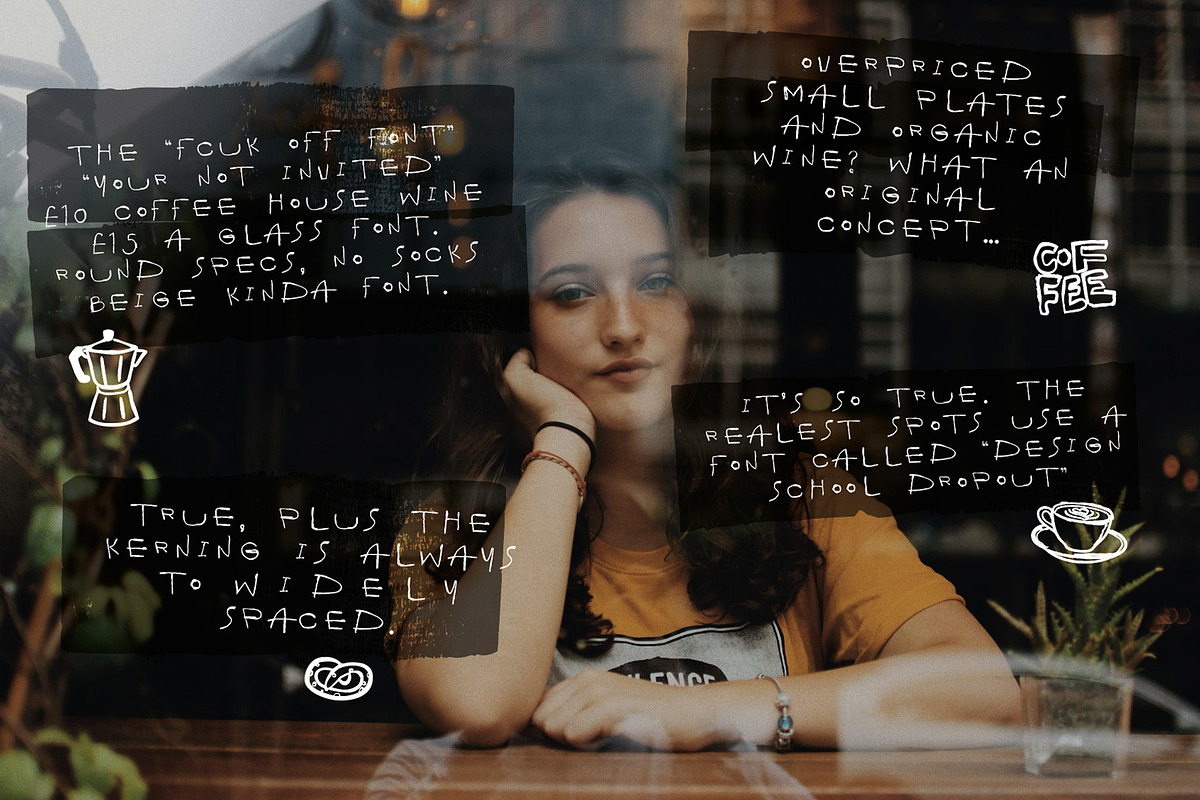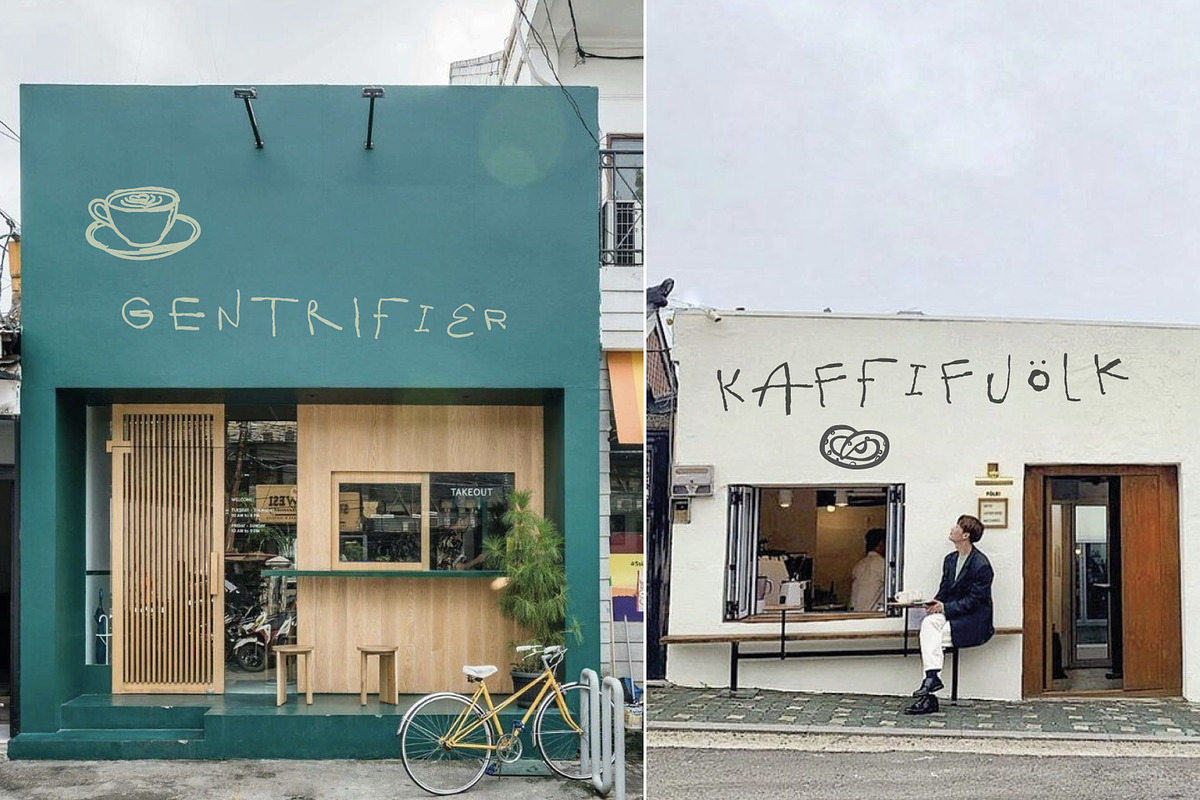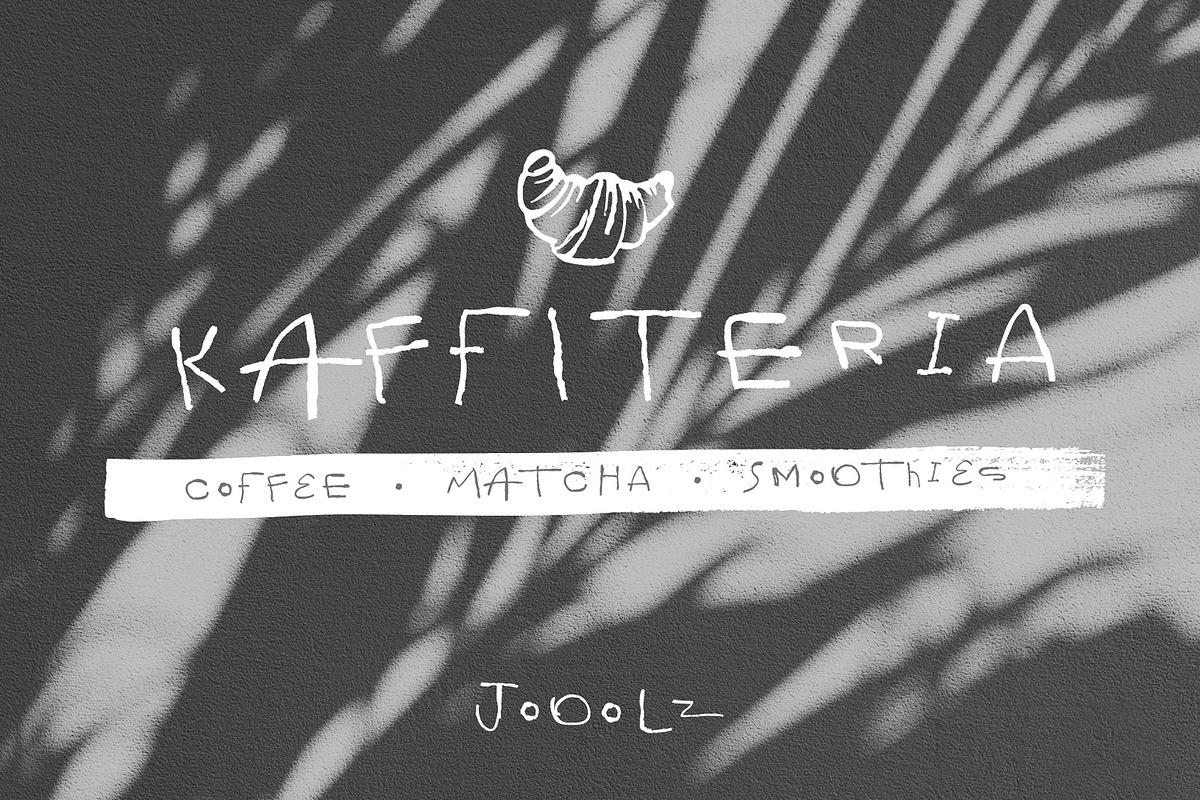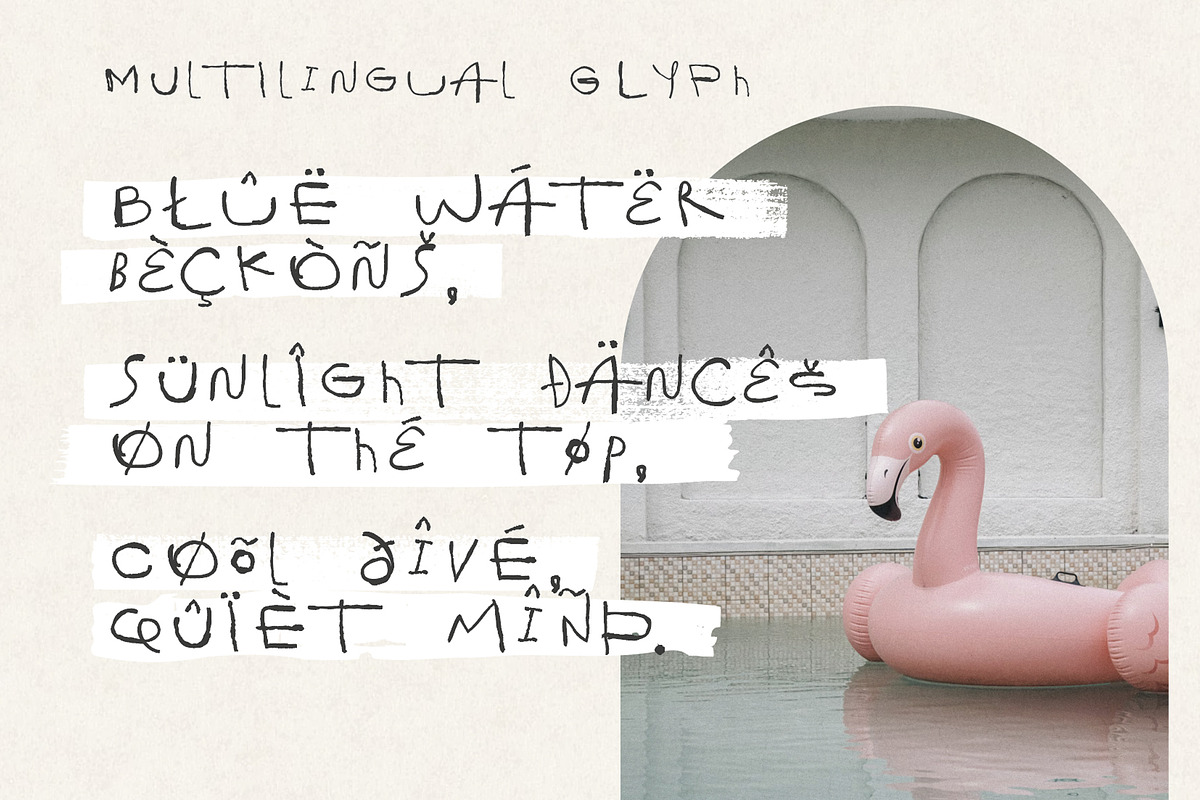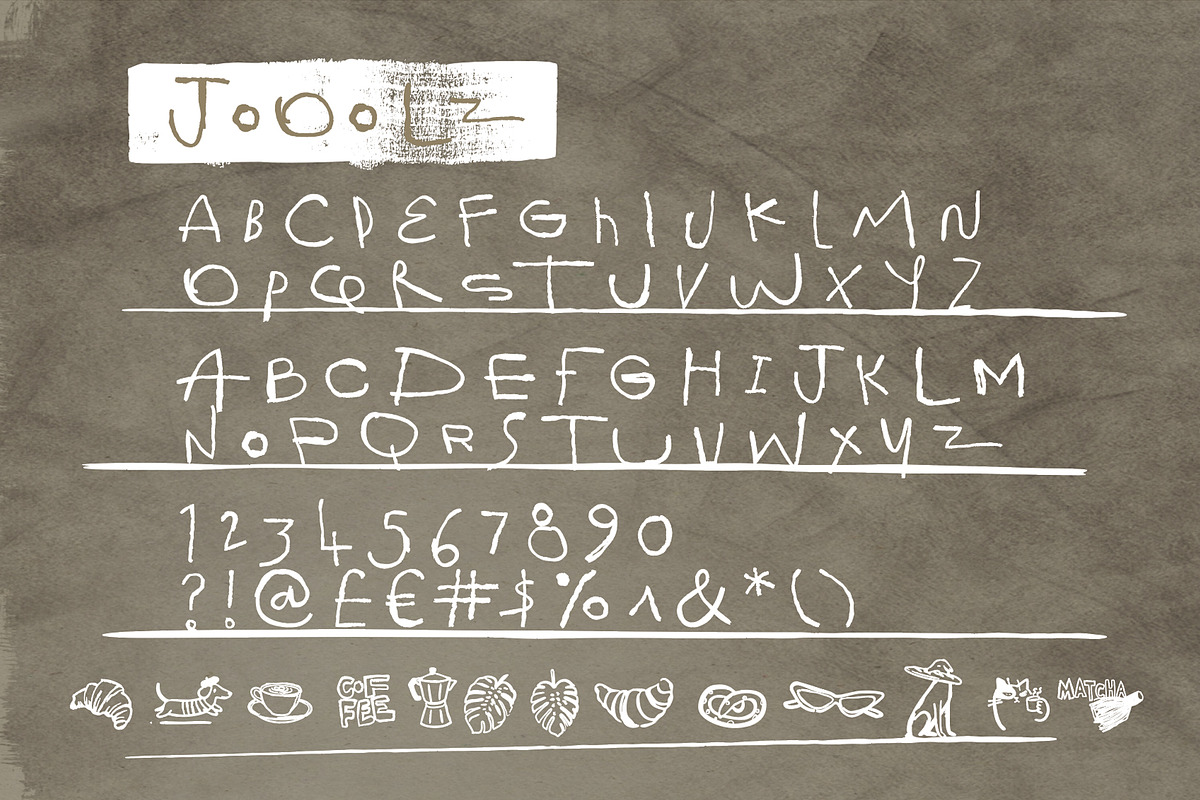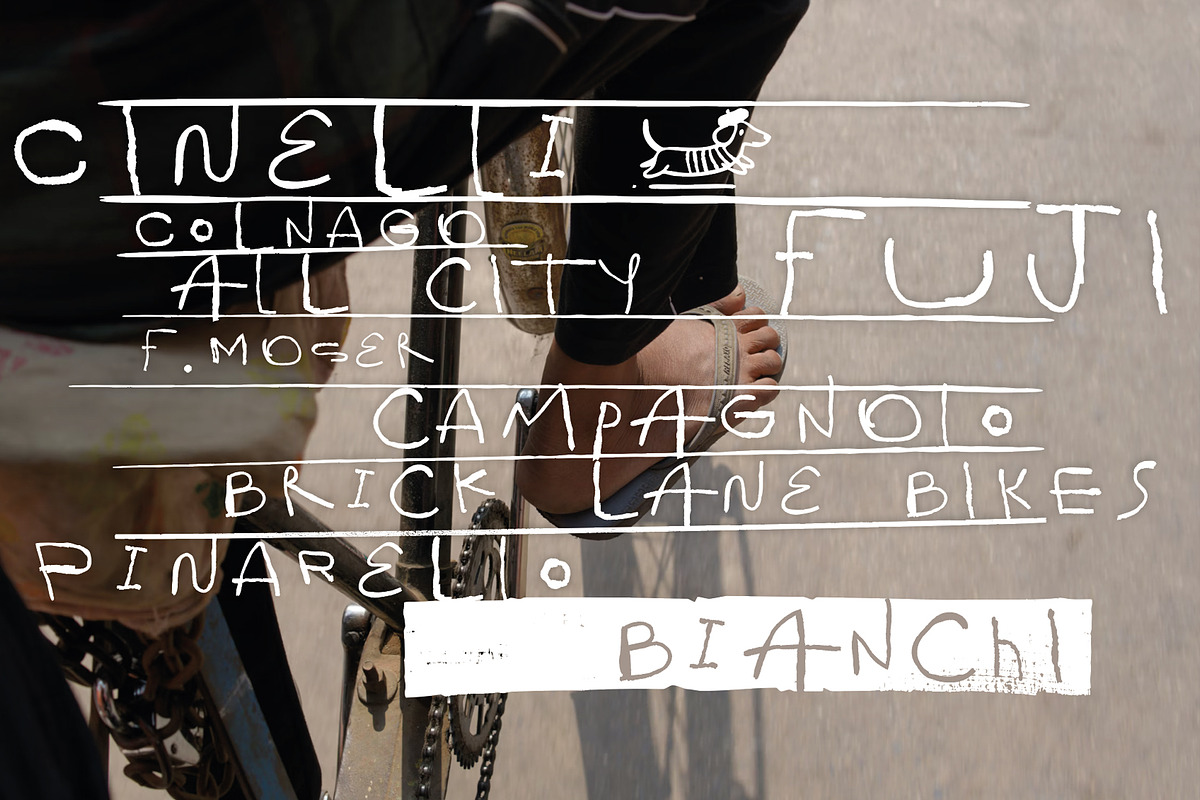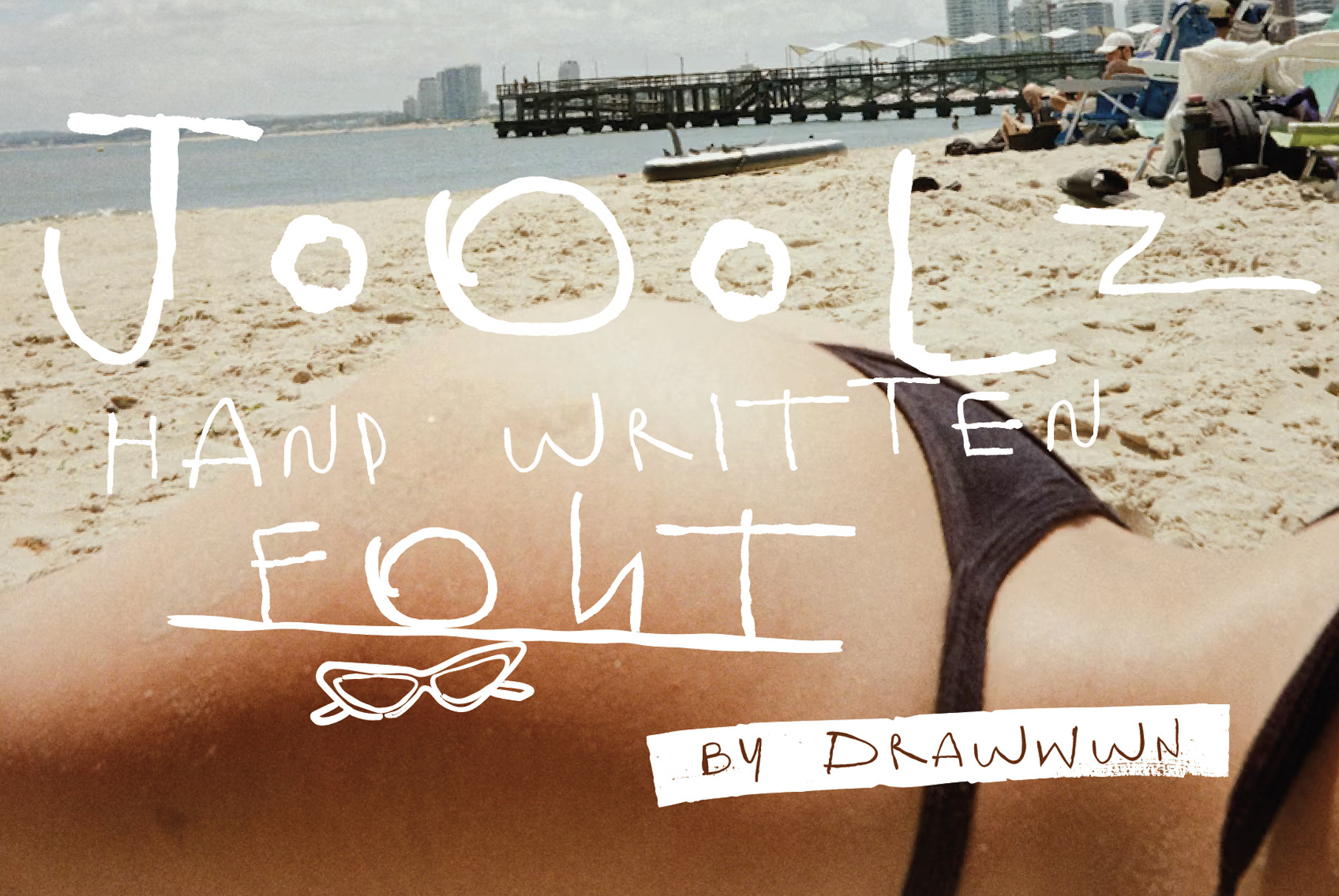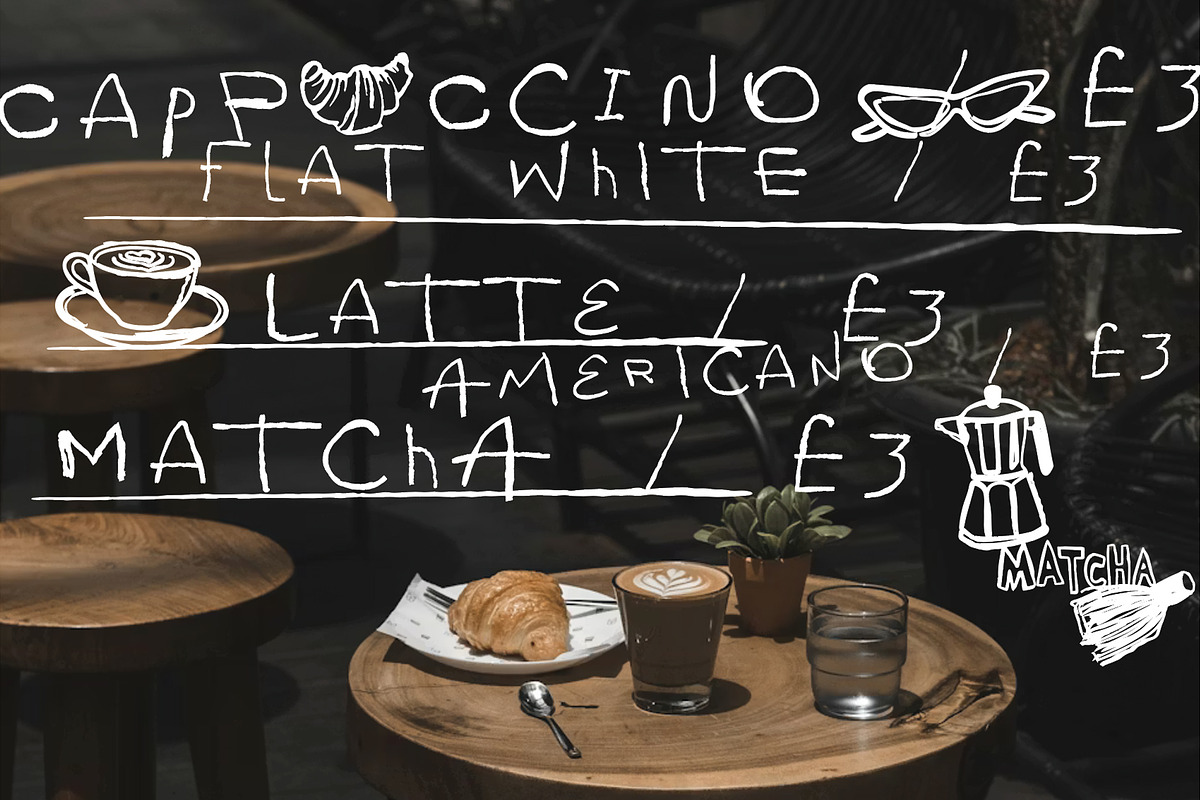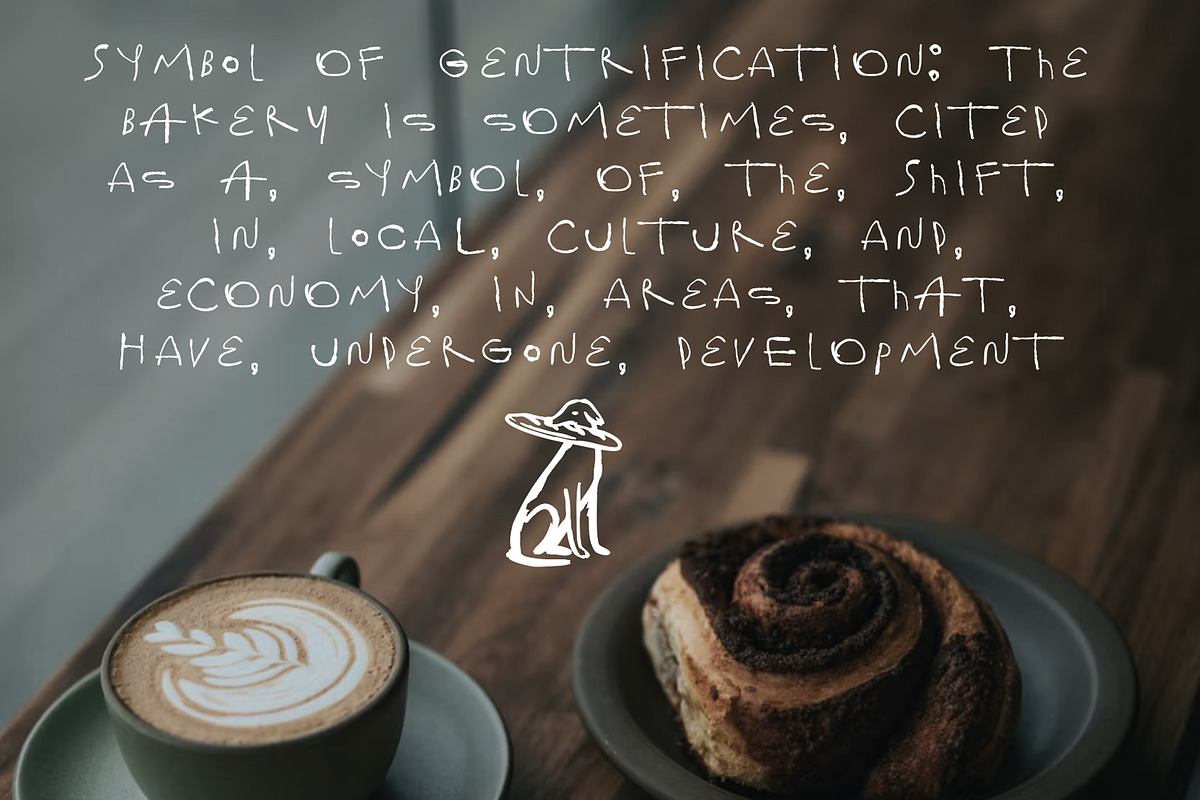
Jooolz | Handwritten font
Jooolz is the perfect typeface for cafés, bakeries, and all your fresh new brands. Loose, lively, and wonderfully unrestrained, it’s full of personality without ever feeling messy. Playful yet confident, it gives your words a handmade warmth and a touch of mischief. From menus to packaging to full brand identities, Jooolz brings irresistible charm. It feels human. It feels authentic. It feels fun... the kind of font that makes people stop, smile, and lean in a little closer. With its wild energy and easygoing flow, Jooolz doesn’t just set the tone, it starts the conversation.